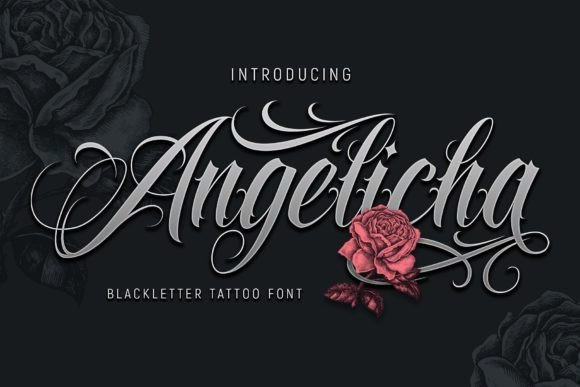
Looking for the perfect font to make your brand stand out? Look no further than Angelicha Font! Created by Letter Stock, this contemporary blackletter tattoo font is the best font for logo design, providing a unique and eye-catching look that is sure to make your brand identity items stand out.
With Angelicha Font, you can confidently add a touch of boldness and edginess to your projects. It's the perfect choice for logos, t-shirt designs, posters, flyers, and more. Its striking style and versatility make it a go-to choice for designers who want to create something truly memorable.
Not only does Angelicha Font look amazing, but it's also easy to use. You don't need to be a professional designer to make it work for you. Simply add it to your project and watch it elevate your brand to the next level.
If you want to make a lasting impression with your brand, Angelicha Font is the way to go. It's a font that's packed with personality and emotion, and it's sure to capture the attention of anyone who sees it. Download it today and start creating something truly remarkable.